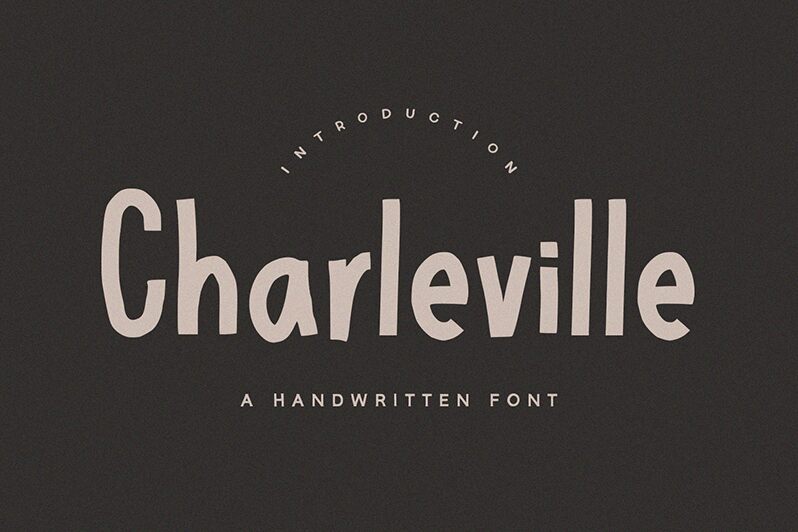
Charleville
Charleville font by Alpaprana Studio is a free display typeface that is comic in style, condensed in width, and hand-drawn in appearance. It exudes a casual vibe that looks friendly and approachable. This makes it ideal for personal or professional project with modern aesthetics.